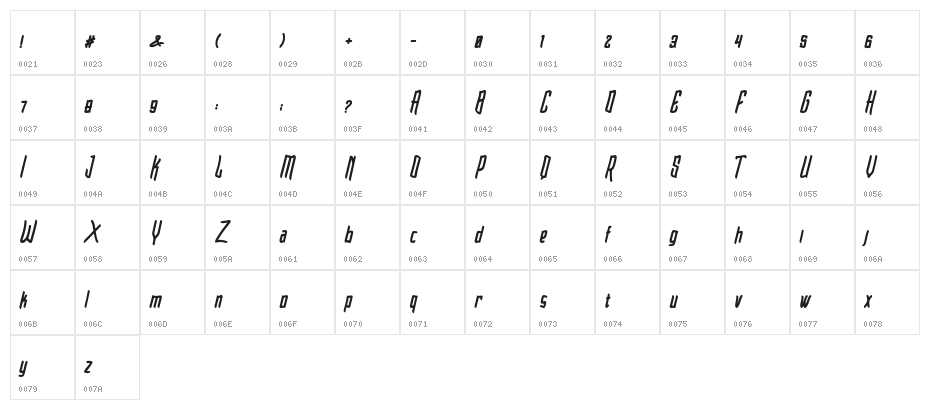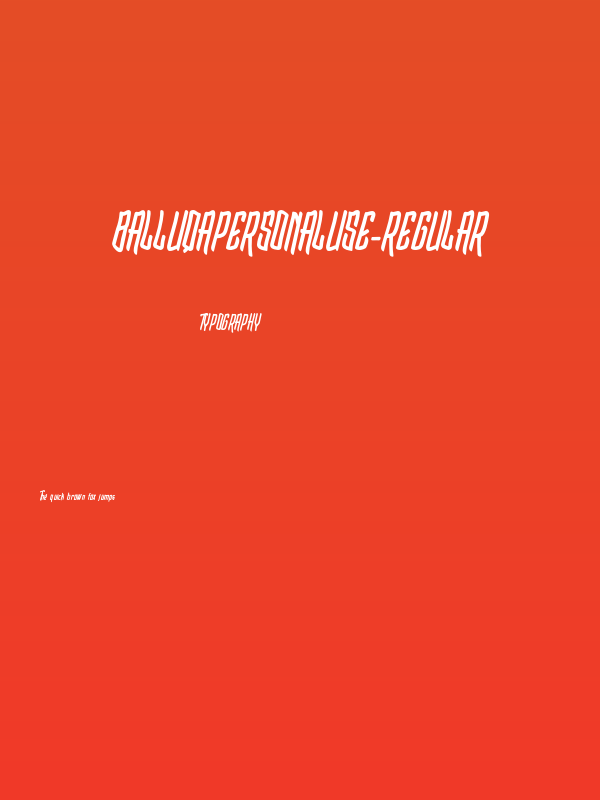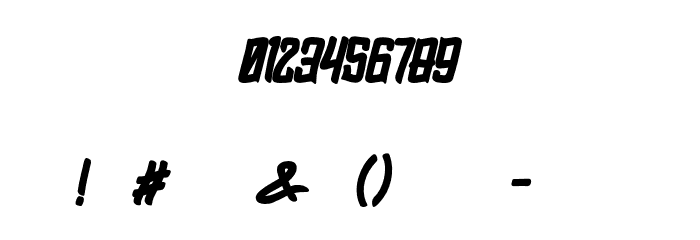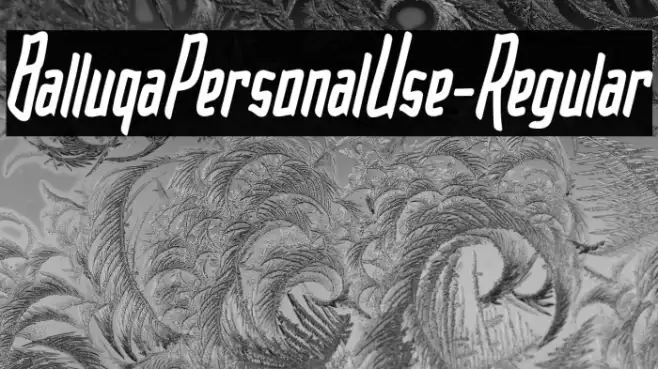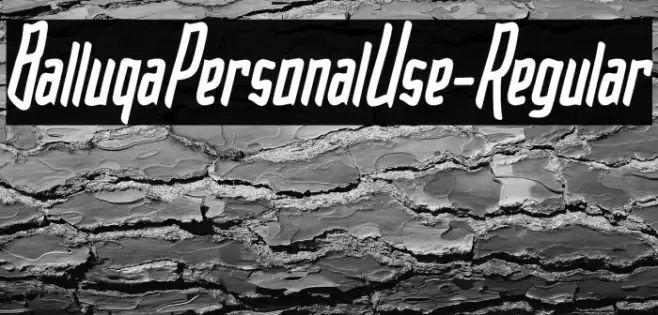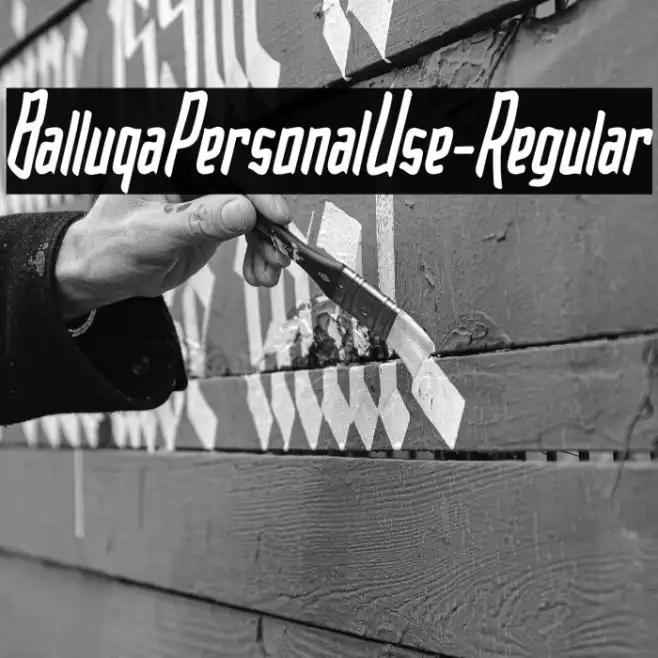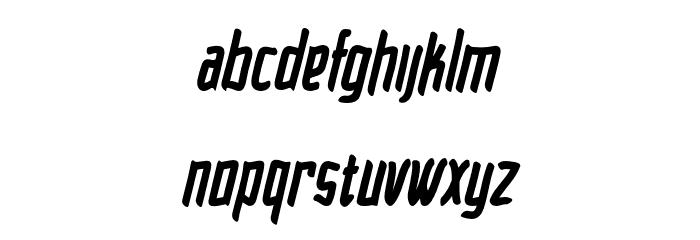
BalluqaPersonalUse-Regular Font
BalluqaPersonalUse-Regular Description
This font features a dynamic and energetic style with elongated, slightly slanted characters that convey a sense of movement and fluidity. The uppercase letters are bold and prominent, while the lowercase letters maintain a consistent flow, enhancing readability. The numbers are distinct and align well with the overall design, making them suitable for various applications. Special characters are creatively integrated, adding to the font's versatility. The overall aesthetic is modern and slightly edgy, making it ideal for projects that require a bold and impactful visual statement.
| Proposed Projects | Ideal for branding, posters, and headlines that require a bold and energetic look. |